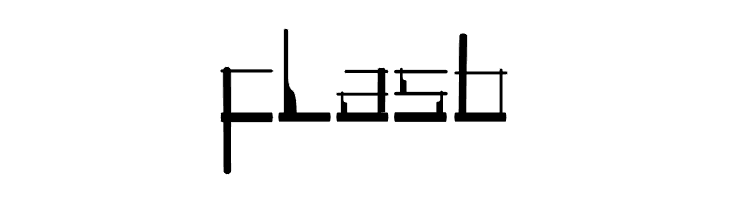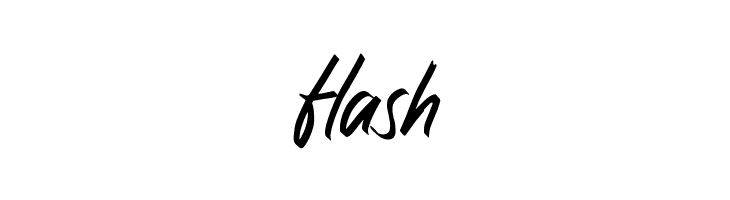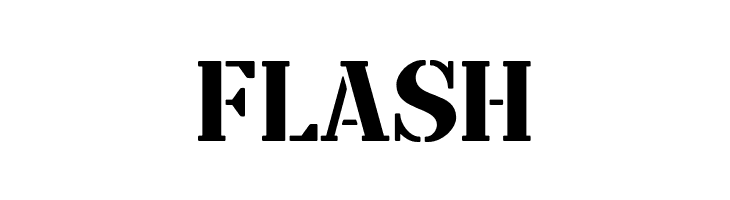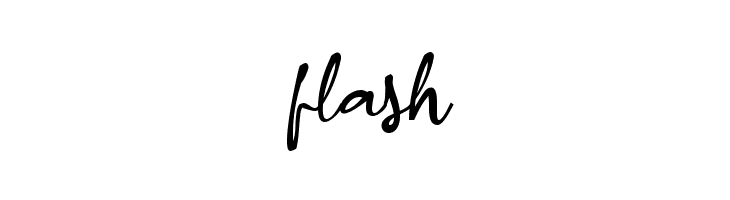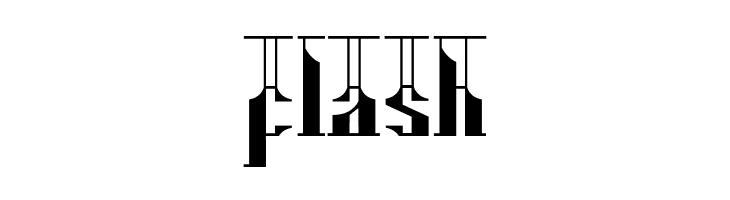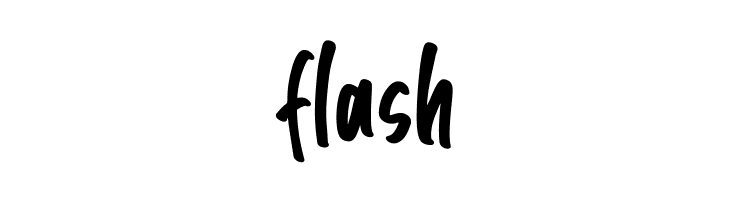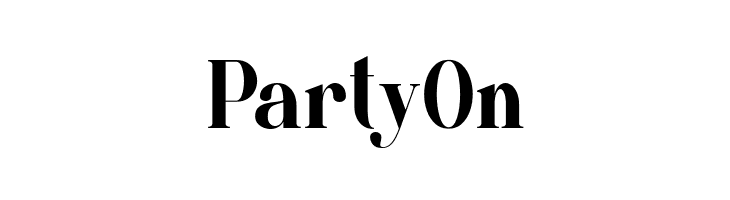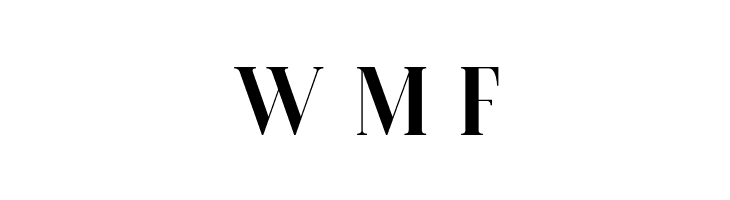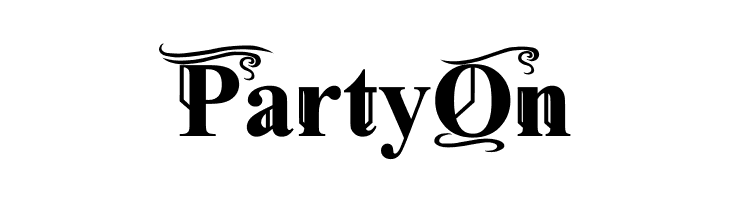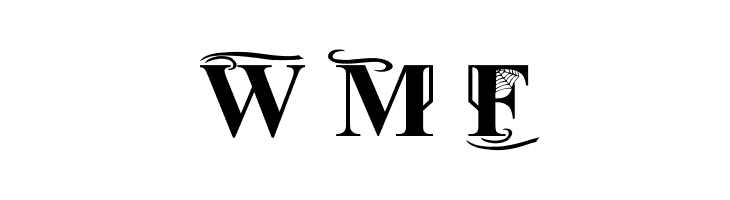
A bold, geometric font with sharp angles and a modern aesthetic.
A bold, decorative font with a unique striped pattern and thick outlines.
A playful, bold font with characters enclosed in hand-drawn boxes.
A bold, high-contrast serif font with a classic yet modern style.
Elegant handwritten script font.
A bold, decorative serif font with ornate detailing and vintage flair.
A playful, hand-drawn font with tall, narrow letters and a modern, informal style.
An elegant script font with flowing cursive letters and ornate swashes.
A bold, decorative font with a unique zigzag pattern and thick strokes.